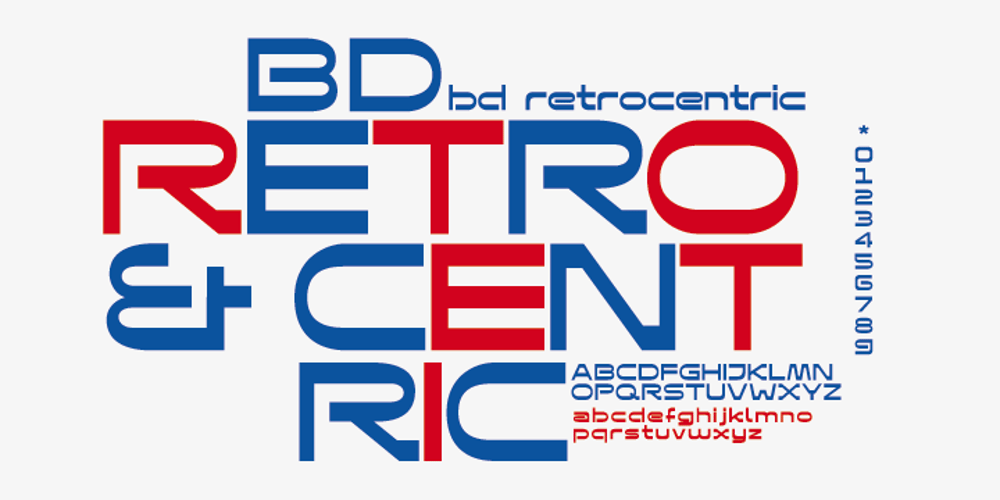
BD Retrocentric Font Family was designed by Lorenz (Lopetz) Gianfreda, Ly Thanh Le and published by Typedifferent. BD Retrocentric contains 1 styles and family package options. The BD Retrocentric font is inspired by logotypes made in the sixties and seventies. The characteristics of this font is the well balanced blend of retro and futurism.